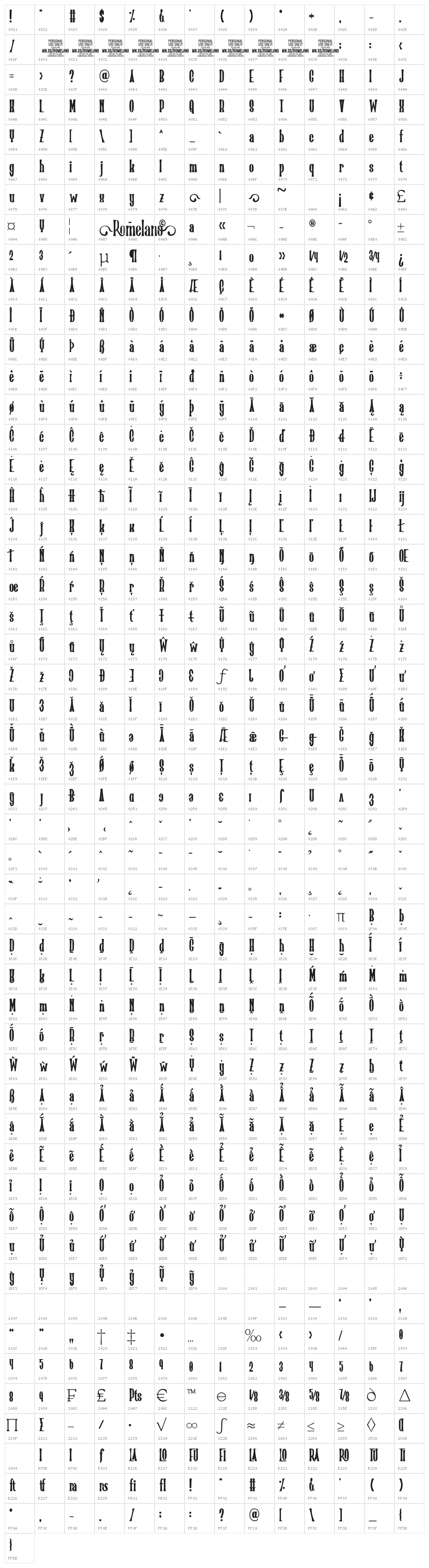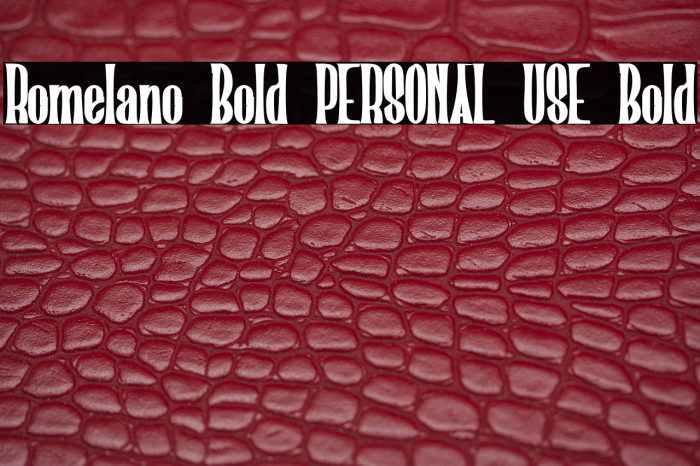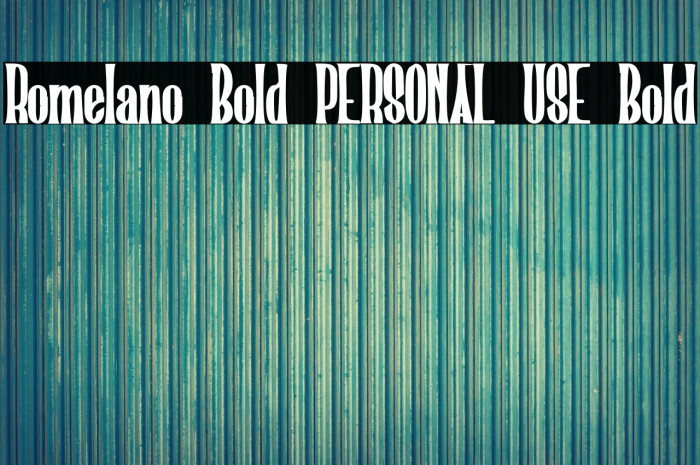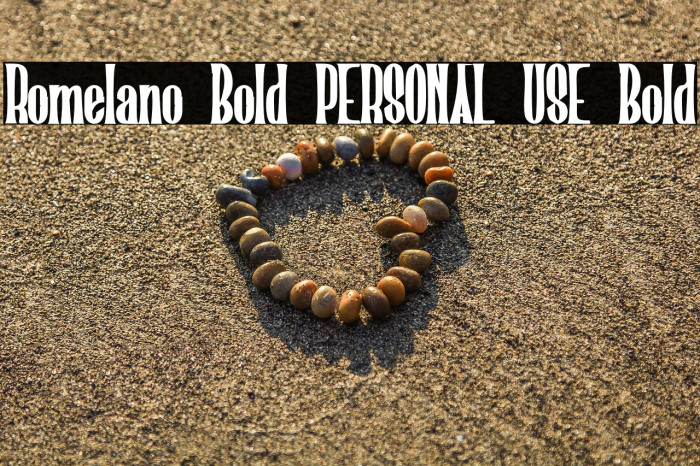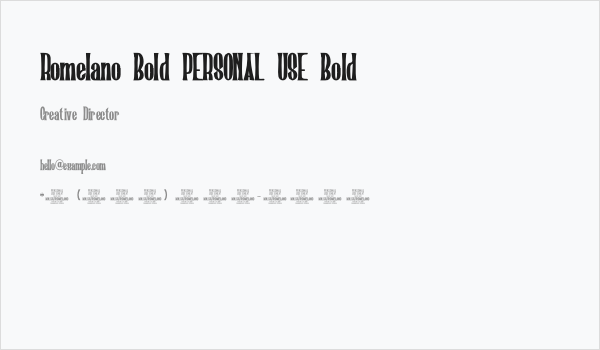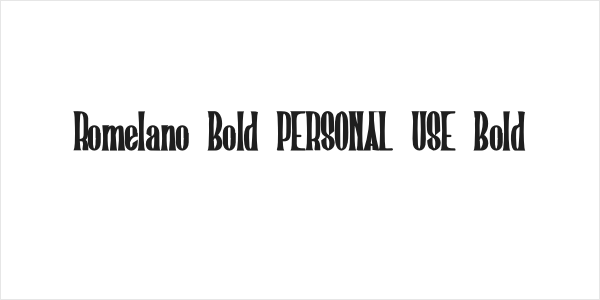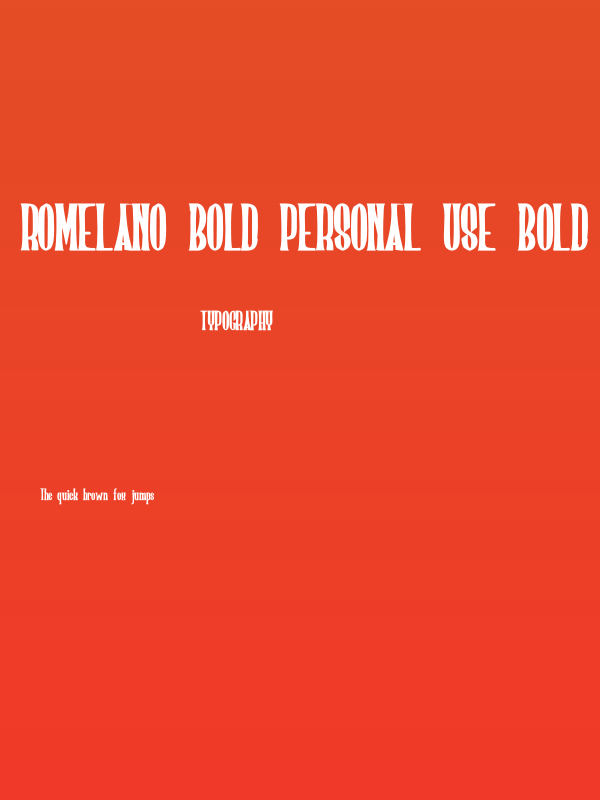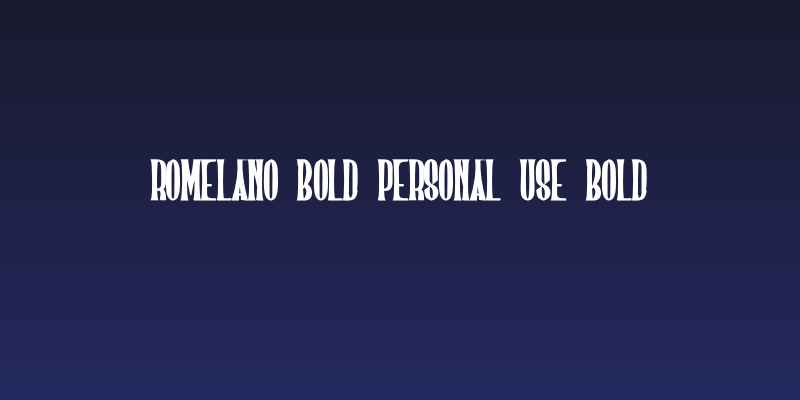
Romelano Bold PERSONAL USE Bold Font
Romelano Bold PERSONAL USE Bold Description
This font features a bold and dynamic style with a strong presence. The characters are tall and slightly condensed, giving them a commanding appearance. The strokes are thick and consistent, providing a sense of stability and strength. The uppercase letters are particularly striking, with a slight flair that adds a touch of elegance. The lowercase letters maintain the boldness while offering a more approachable feel. The numbers and special characters are designed to match the overall robust aesthetic, ensuring uniformity across all text elements. This font is ideal for making a bold statement in any design project.